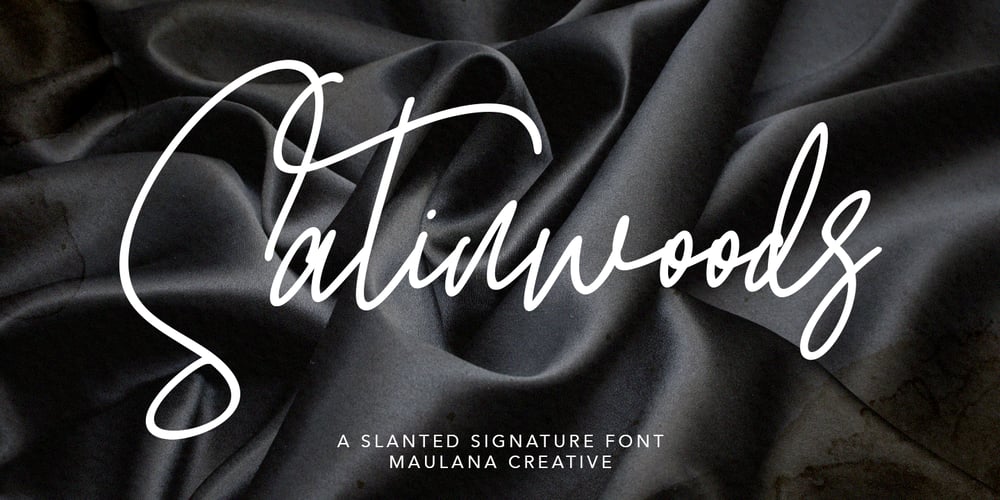
Satinwoods
Satinwoods font
Satinwoods Font Family was designed by Gilang Maulana and published by Maulana Creative. Satinwoods contains 1 styles and family package options. Satinwoods Slanted Signature FontGive your designs an authentic handcrafted feel. Satinwoods is perfectly suited to logo, stationery, branding, typography quotes, magazine or book cover, website header, clothing, branding, packaging design, restaurant and more.